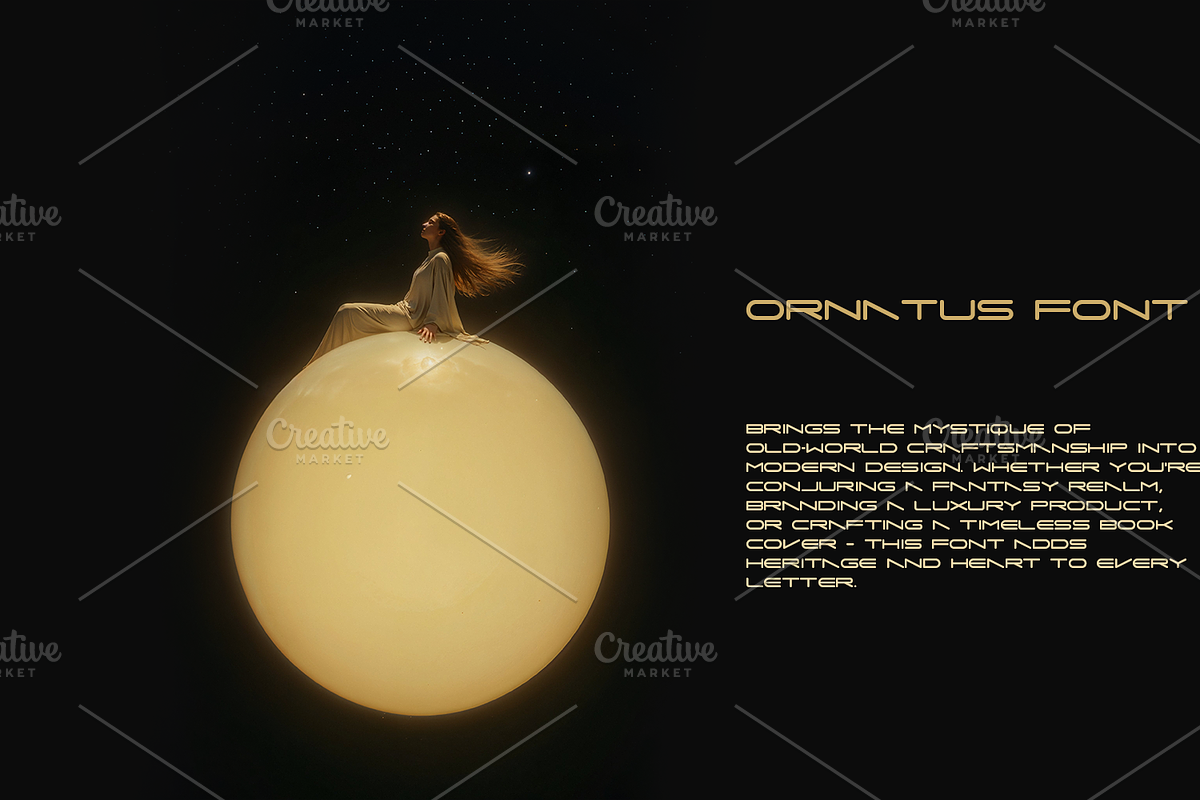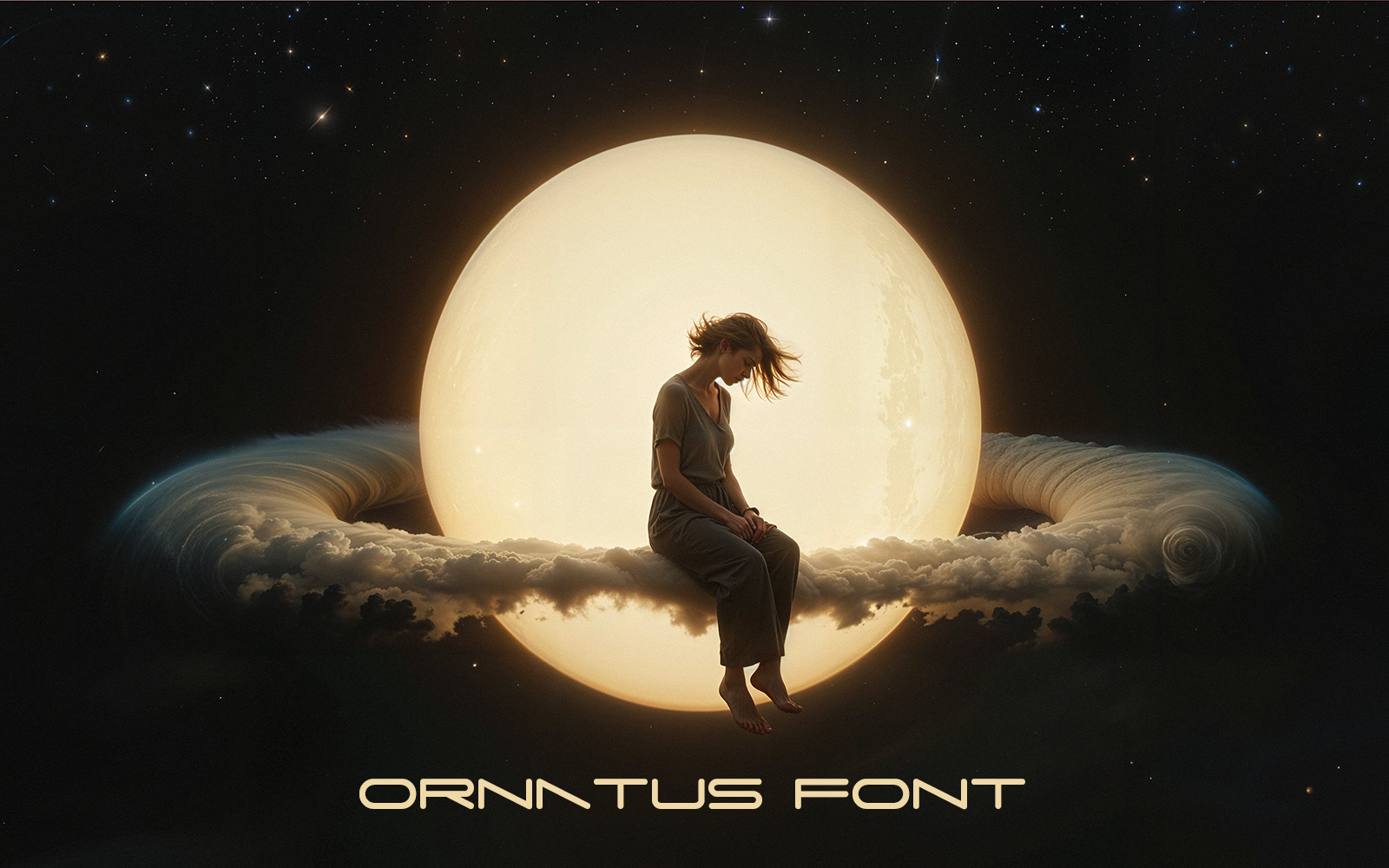
📖 Introducing Ornatus — Where Stories Begin With Style.
Elegant. Ornate. Timeless.
Ornatus brings the mystique of old-world craftsmanship into modern design. Whether you're conjuring a fantasy realm, branding a luxury product, or crafting a timeless book cover — this font adds heritage and heart to every letter.
✒️ Distinctive serif detailing for rich display use 📚 Perfect for fantasy titles, high-end branding, or classical design 💫 Made for legends, love letters, and lavish labels Let your words live longer. Let them echo with style.
👑 Ornatus — Typography for the timeless.